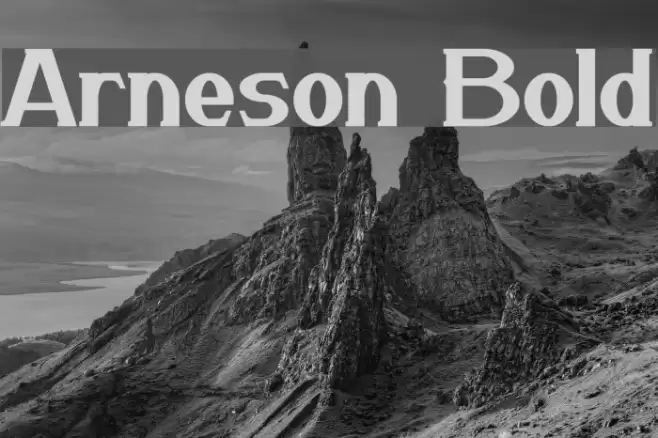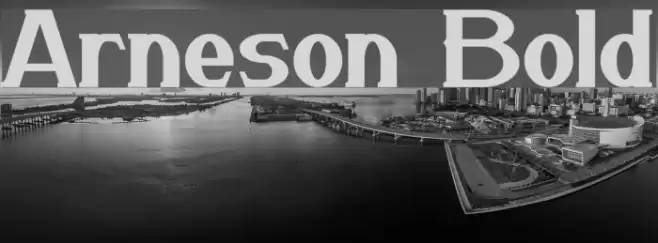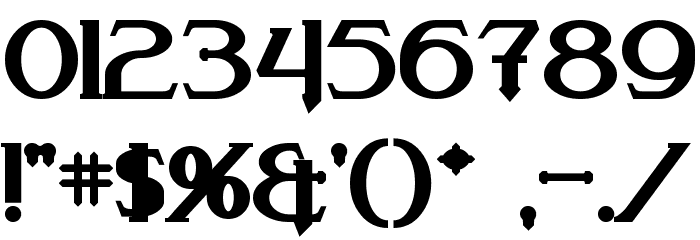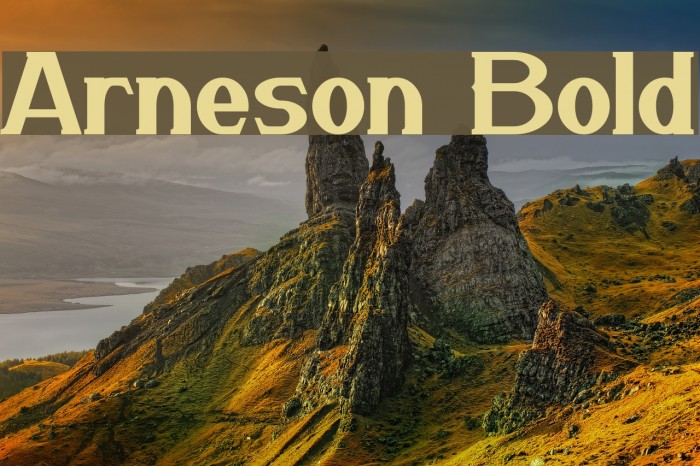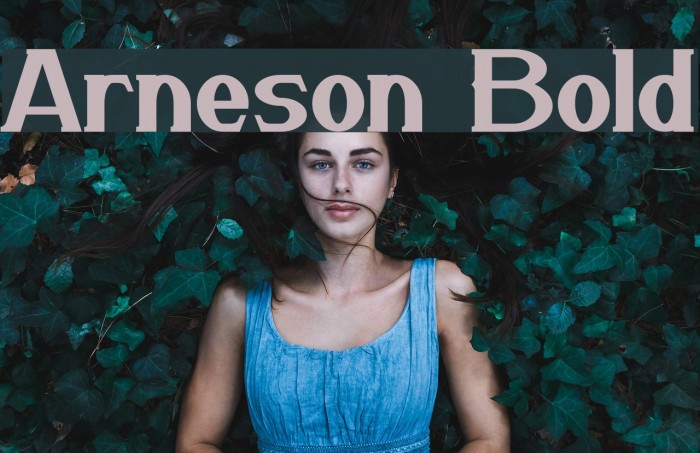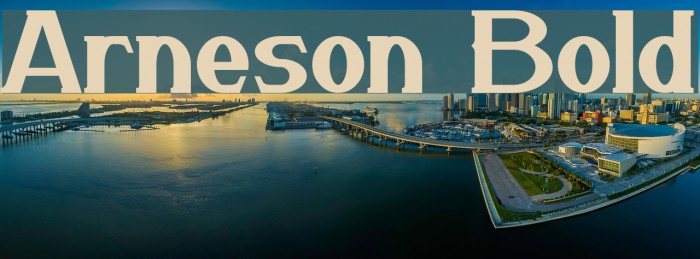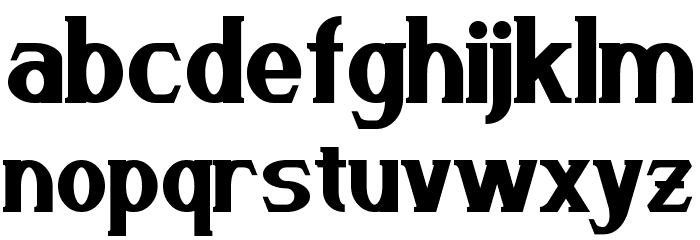
Arneson Bold Font
Arneson Bold Description
This font features a bold and striking design with a distinct Gothic influence. The uppercase letters exhibit sharp angles and unique serifs that give them a medieval feel, while the lowercase letters maintain a consistent boldness with rounded edges. The numerals are equally bold, with a consistent height and width that ensures readability. Special characters are designed with the same bold, angular style, making them stand out. The overall appearance is dramatic and eye-catching, suitable for designs that require a strong visual impact.
A bold, Gothic-inspired font with sharp angles and dramatic serifs from Uncategorized fonts.
- Proposed Projects: Ideal for use in posters, logos, book covers, and any project requiring a bold, medieval aesthetic.
- Overall Style: Gothic, Decorative